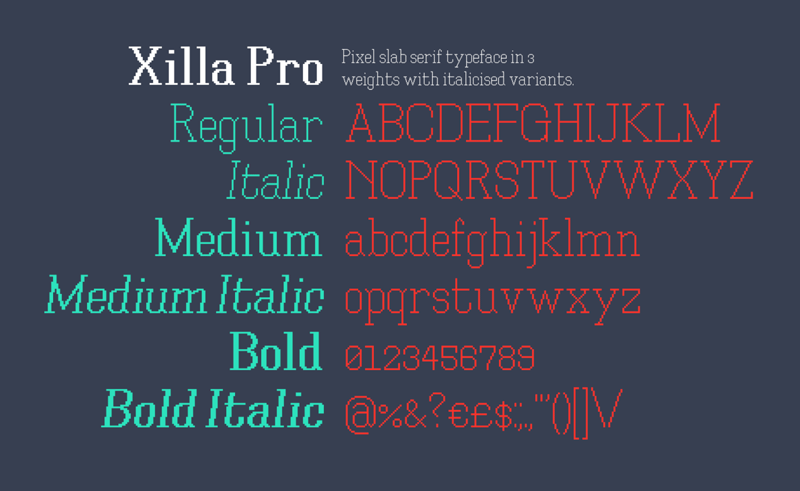
Font name: | Xilla Pro |
Author: | Will Albin-Clark |
Note by Will Albin-Clark | |
Xilla Pro ���������������������������� Xilla Pro with medium, bold and italic variants! Free to use here: willalbinclark.wixsite.com/portfolio/xilla-pro ���������������������������� Pixel slab serif typeface. Inspired loosely by Zilla, the�Google�open source font. This typeface is free to use for any purpose, personal or commercial. � However it would be greatly appreciated when using this typeface publicly�to credit my instagram (@willalbinclark) but not required.� Xill Pro is the second iteration of Xilla, created at twice�the scale.� |